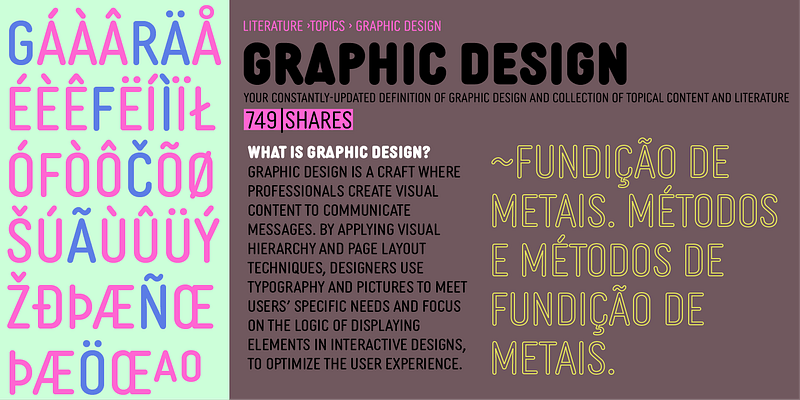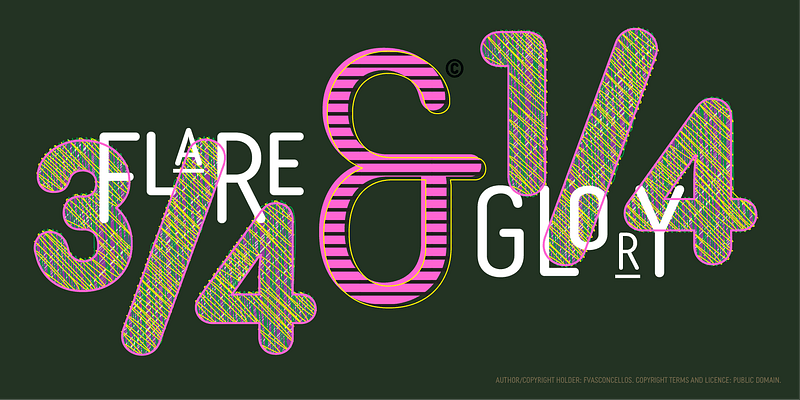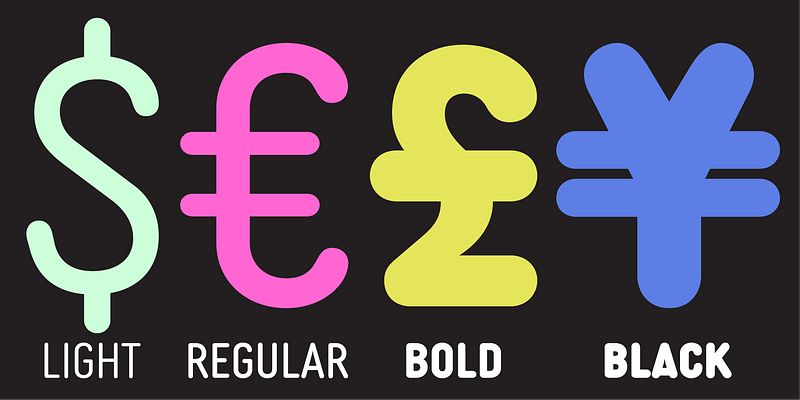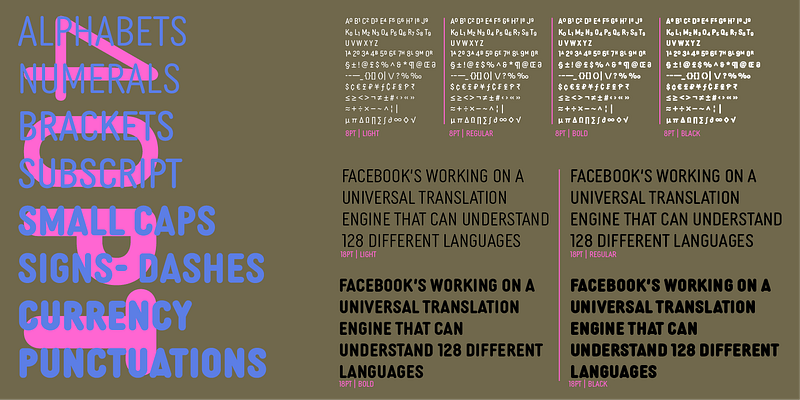
Mundane information—the sort you might ignore—often appears in the form of very simple, utilitarian lettering, devoid of personality, the sort of industrial lettering you find on old blueprints, park restrooms, and electrical boxes. MVB Diazo is such a thing. It looks like lettering done earnestly with a plastic template. The monoline caps—constructed from straight lines and simple curves—have rounded details as if rendered by a blunt pen on a topographical survey or by a router on a rustic campground sign. The MVB Diazo fonts are compact, available in two widths: Condensed and Extra Condensed. Each width offers four weights from Light to Black. The fonts are perfect for wherever plain and boring letterforms are required. All widths and weights are also available in two distressed textures (#1 and #2) that accentuate the industrial character of the design. Rough #1 is gritty, with finer texture for use at larger sizes. Rough #2 exhibits more damage, the roughness apparent when used at smaller sizes. The Rough fonts include alternates of a number of glyphs so that variation of texture is possible when letters repeat in a word.